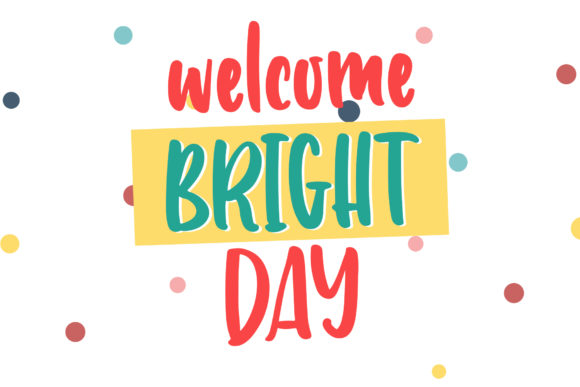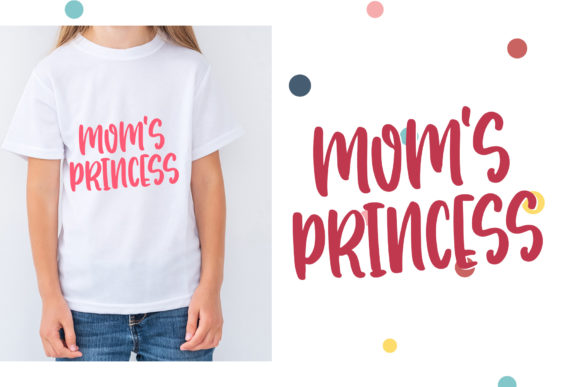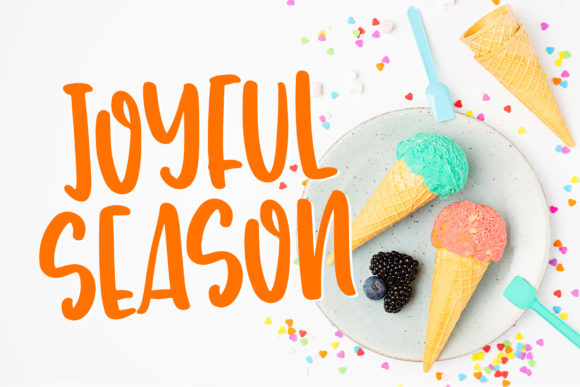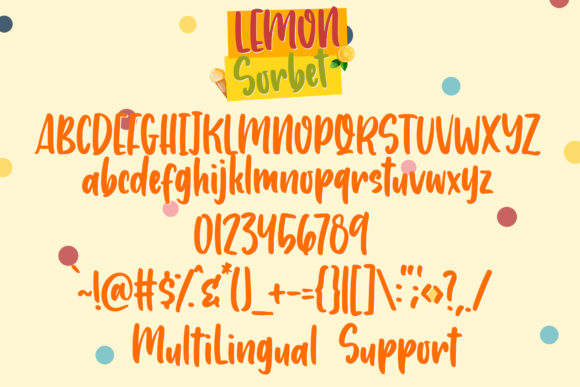
Introduction to Lemon Sorbet Font
Lemon Sorbet is a bold and colorful display font.
Its friendly feel makes this font incredibly versatile, fitting a wide range of contexts Add it to your creative ideas and notice how it makes them stand out.
Key Features of Lemon Sorbet Font